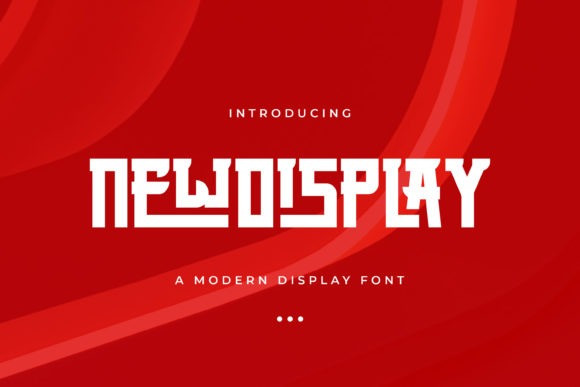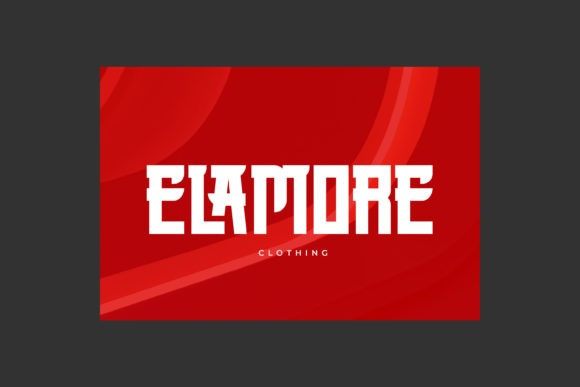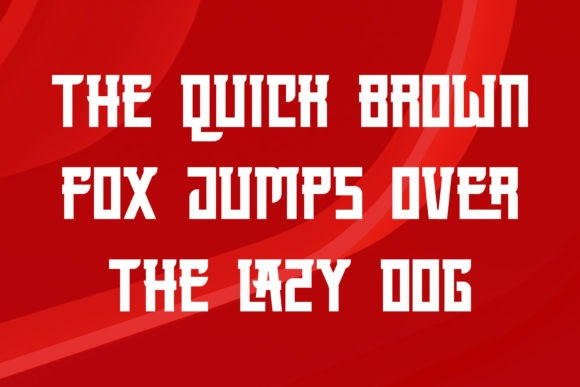
New Display Font
New Display is a modern and bold display font. Whatever the topic, this font will be a wonderful asset to your font library, as it has the potential to enhance any creation.